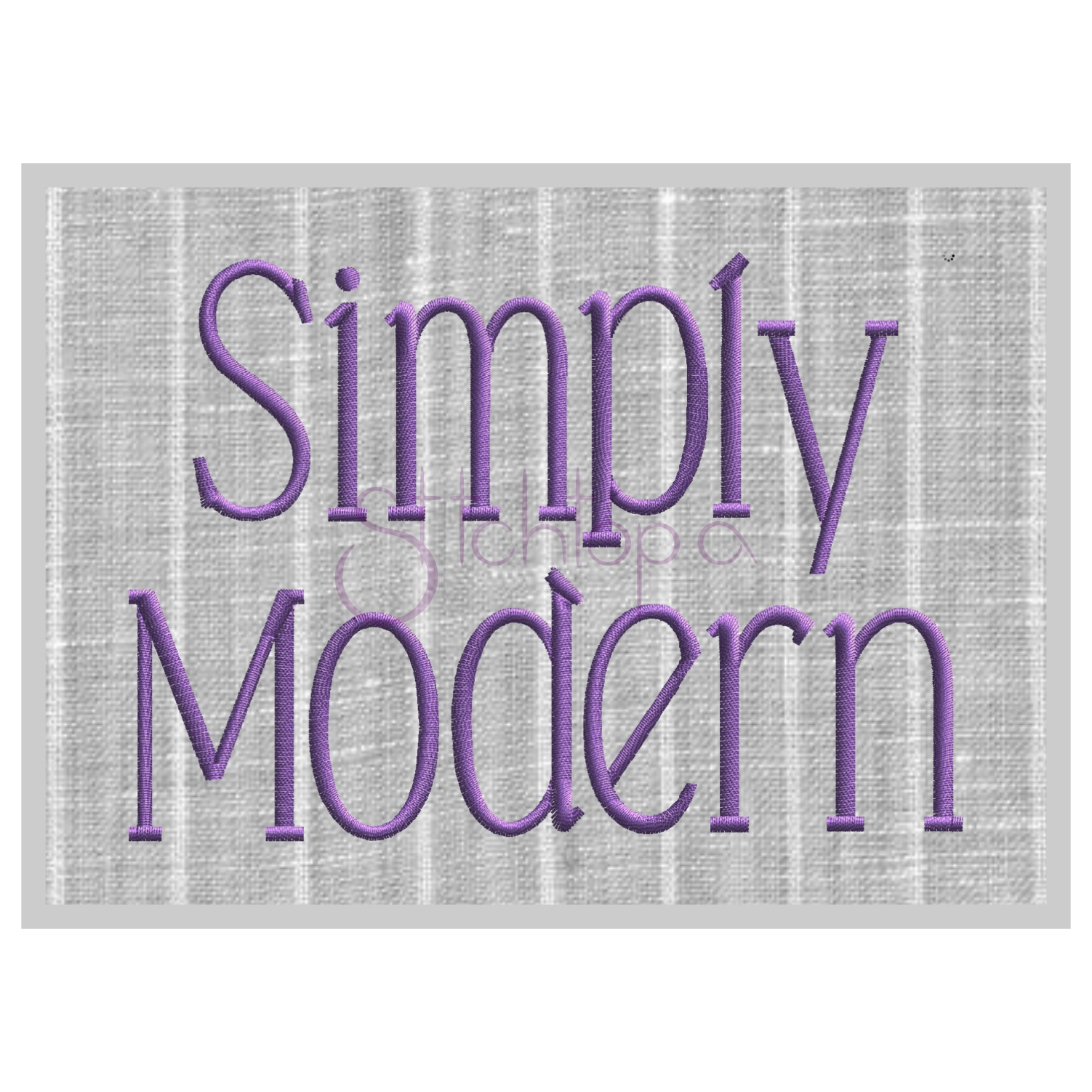
Serif Fonts Are Available In A Plethora Of Styles And Patterns.
Fonts with 'clean' designs in modern styles. This handcrafted font with dashed strokes perfectly reproduces a real running stitch. Oma’s place free embroidery fonts.
It comes in both uppercase and lowercase and would be perfect for adding a. Free embroidery fonts browse through our collection of free embroidery font samples to help you find the best lettering to use for your projects. In 2021, modern fonts are usually sans serif and can have geometric, futuristic, abstract, or urban font styles.
The Anna Free Bx Font From Oma’s Place Is Cute And Swirly.
You’ll find a range of fonts that you can apply to embroidery for different themes and audiences. Many digitizers that offer embroidery fonts offer them in the same file formats as embroidery. Modern script and modern calligraphy styles are a huge departure from traditional calligraphy.
Modern Fonts Are Styles That Are New To Our Present Time, And Differ From The Remote Past.
Let’s Take A Look At Them And See How They Differ.